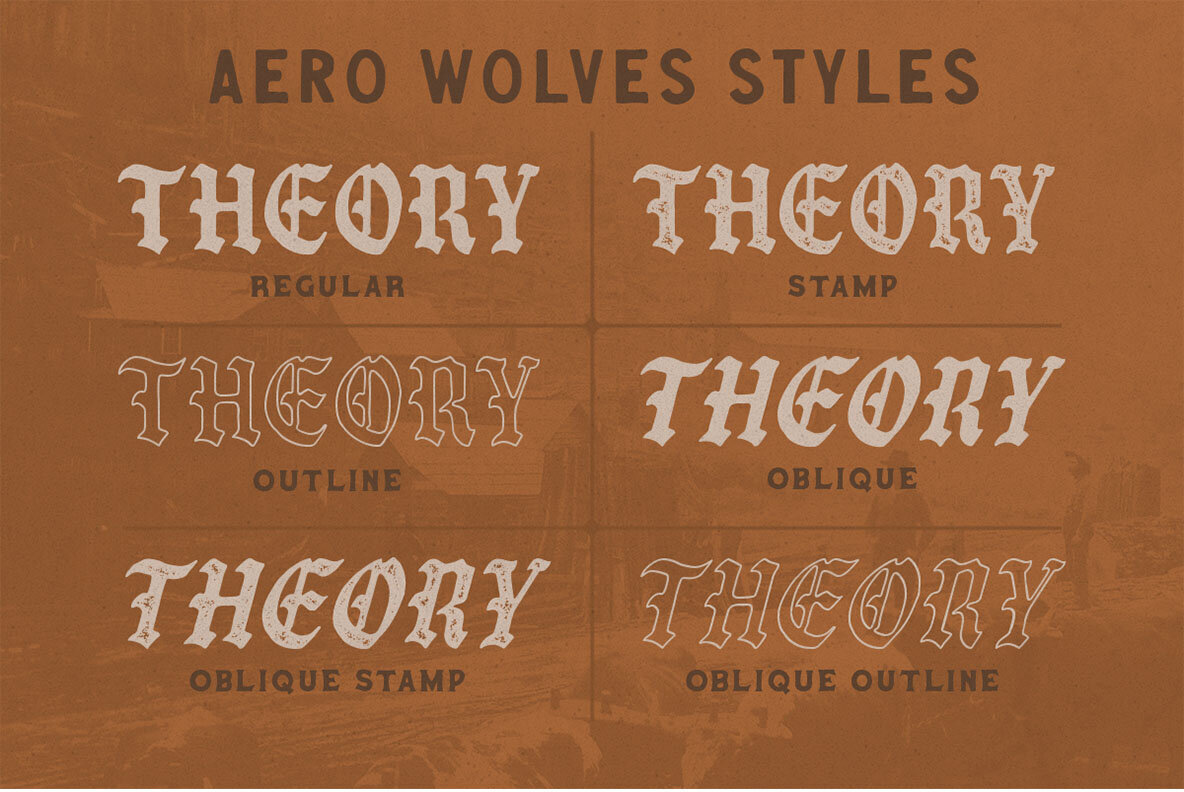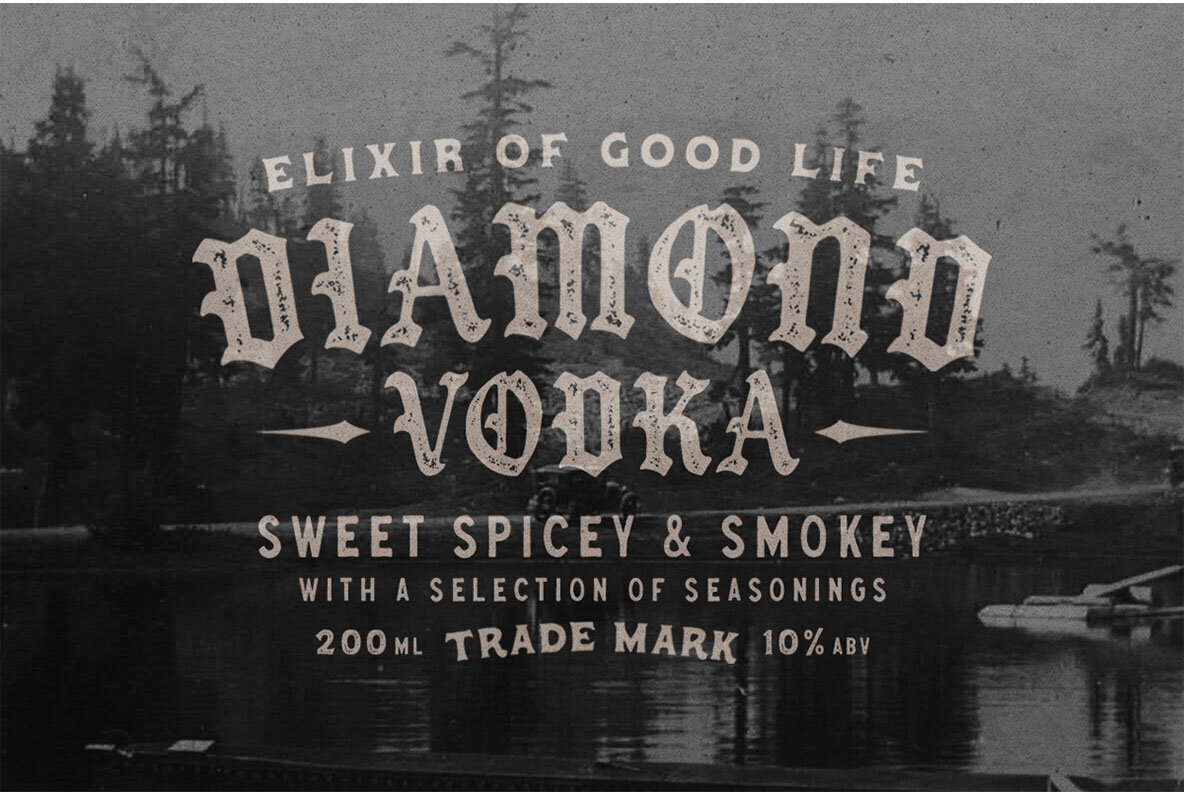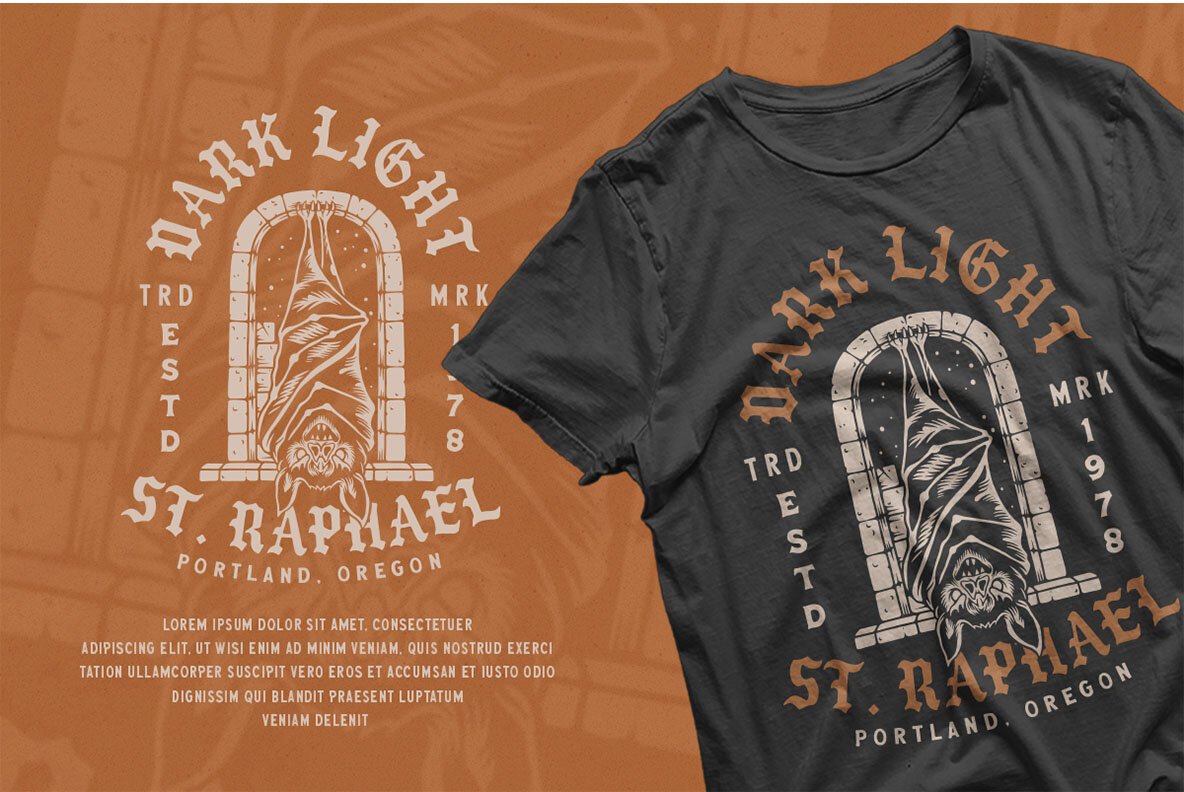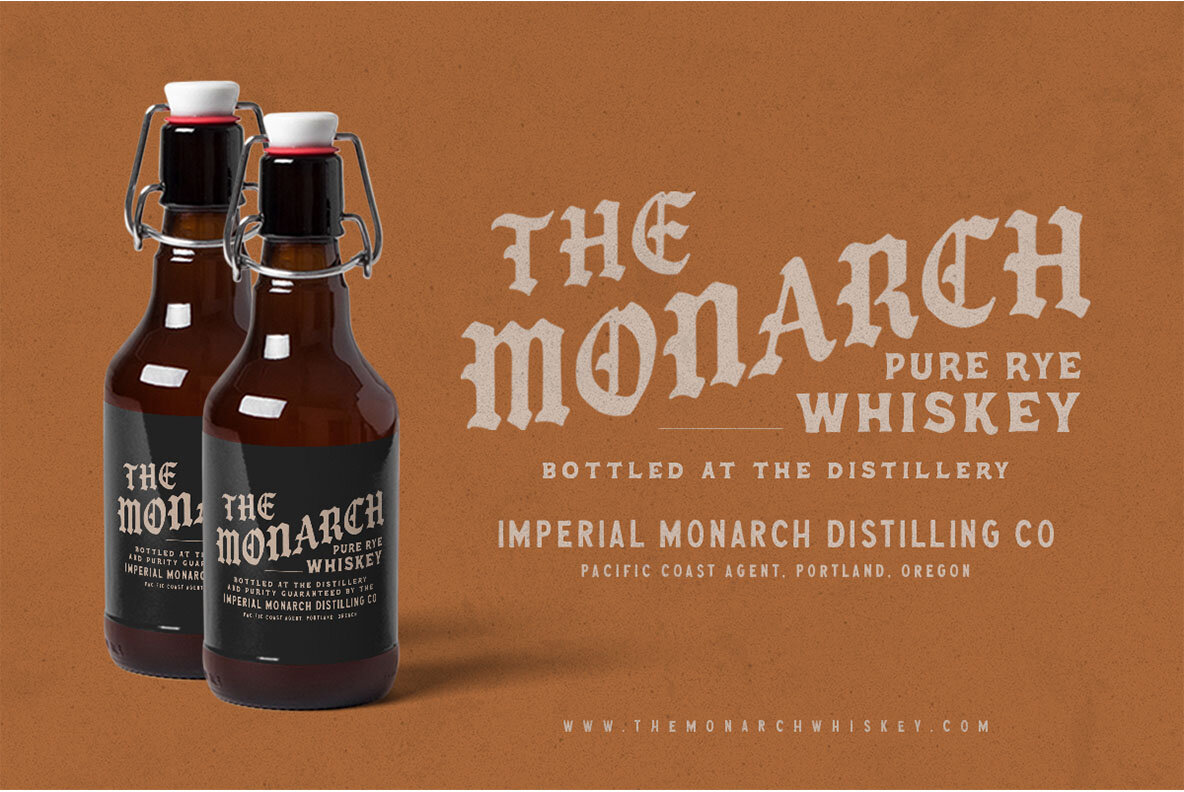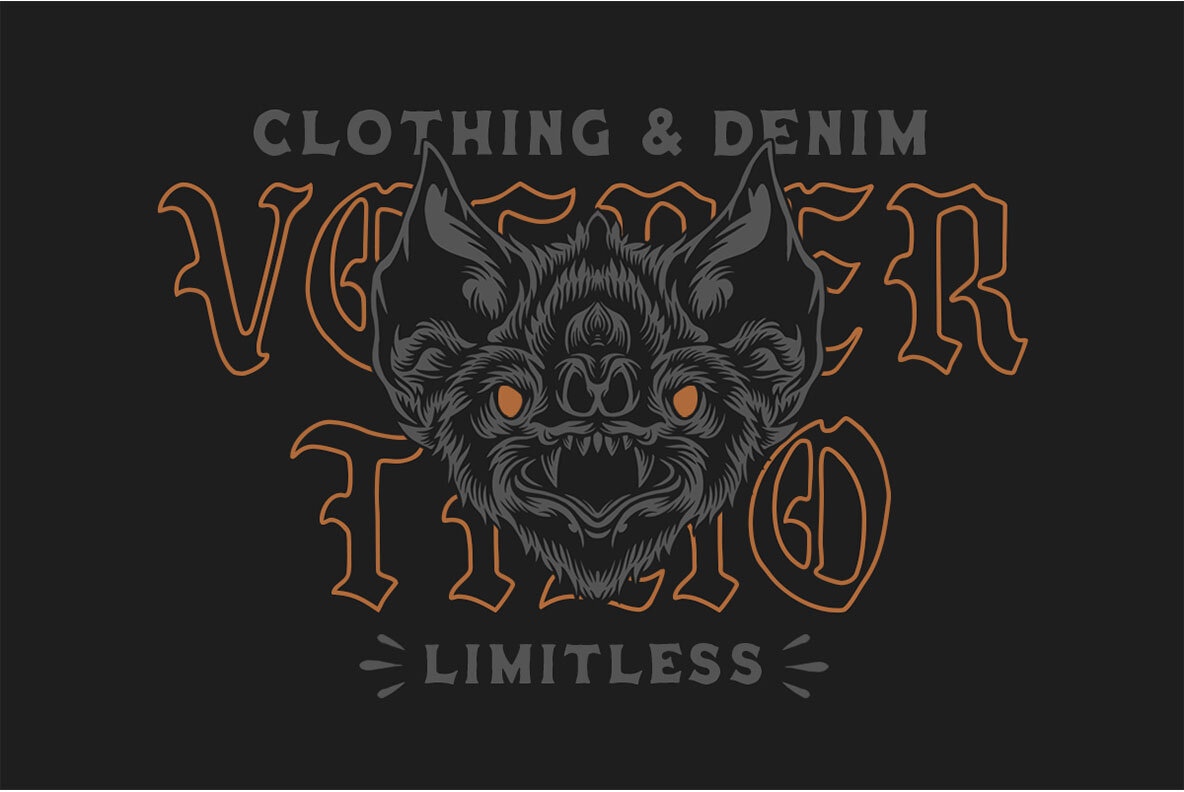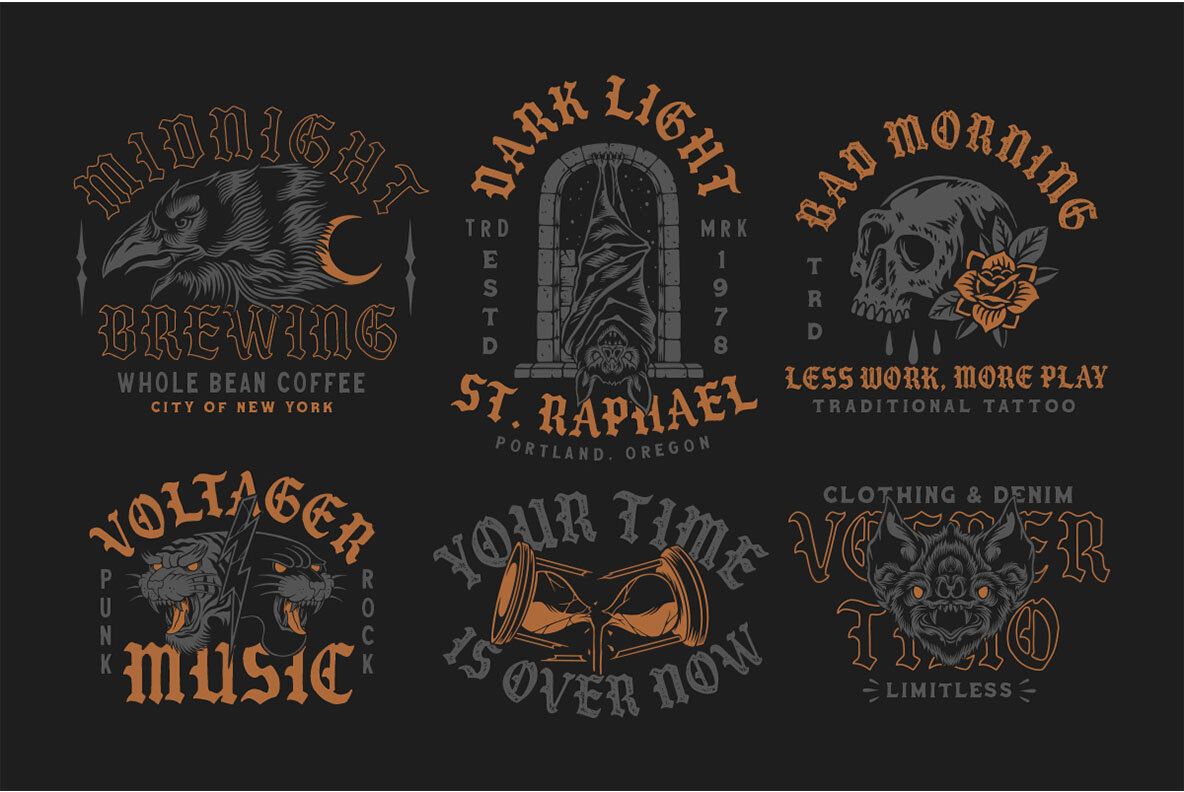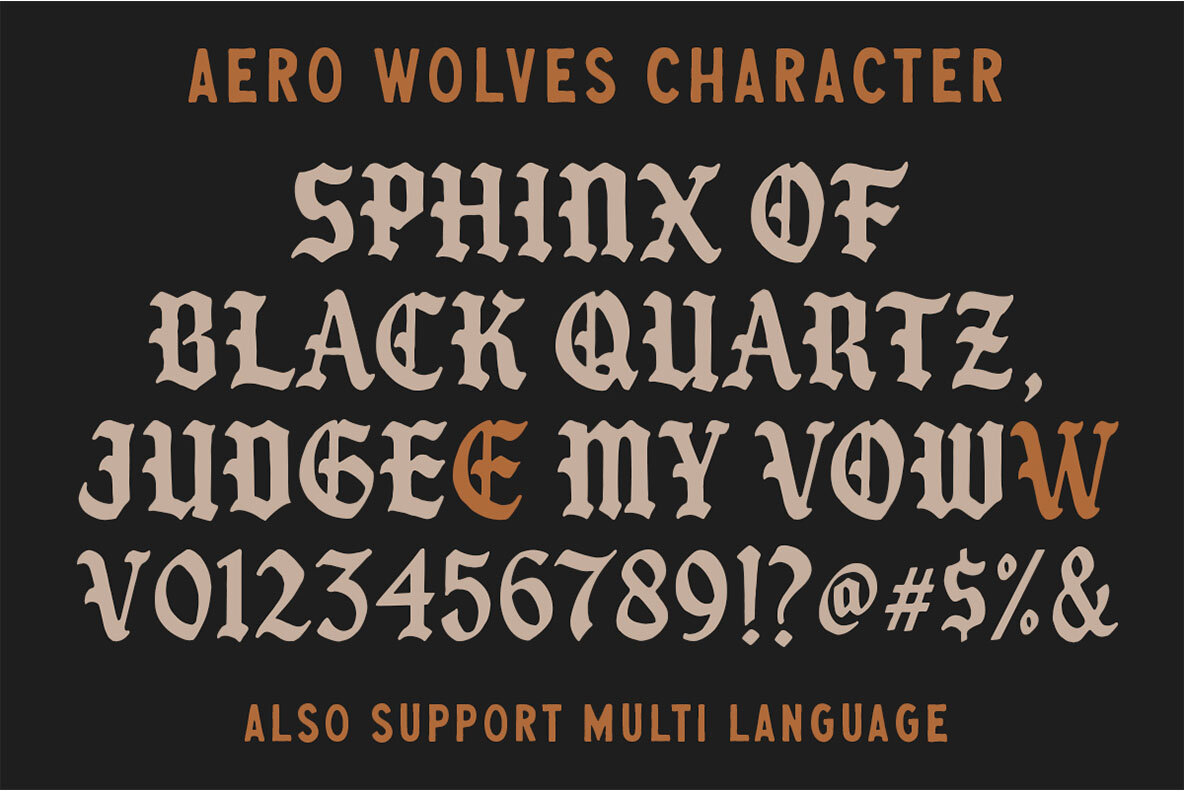
Aero Wolves Font
Immerse yourself in the allure of Aero Wolves, a typeface from the distinguished team at Ironbird Creative. This organic blackletter font exudes a hand-drawn charm, available in regular, stamp, oblique, and outline styles, perfect for infusing your work with a vintage aesthetic and a touch of darkness. Ideal for diverse graphic designs including branding materials, apparel, prints, logos, and posters.Aero Wolves: A Craft of Organic Blackletter Design